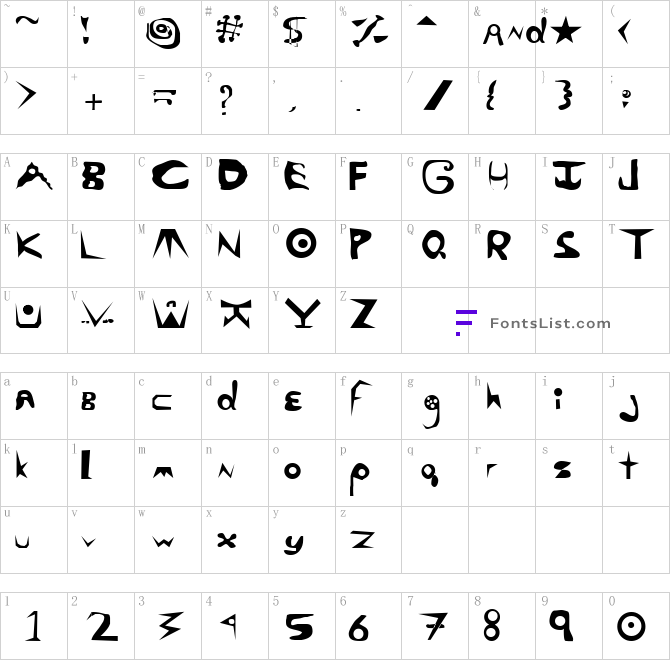
- Font Name:Ala Carte
Ala-Carte.ttf is a very beautiful artistic font, Ala-Carte.ttf is widely used in the design and printing of various books and pictures,Ala-Carte.ttf has a strong visual impact,Ala-Carte.ttf is a commonly used font in newspapers, magazines and books, and is used in posters, e-commerce Poster design, store design, logo design, font design and other fields.Ala-Carte.